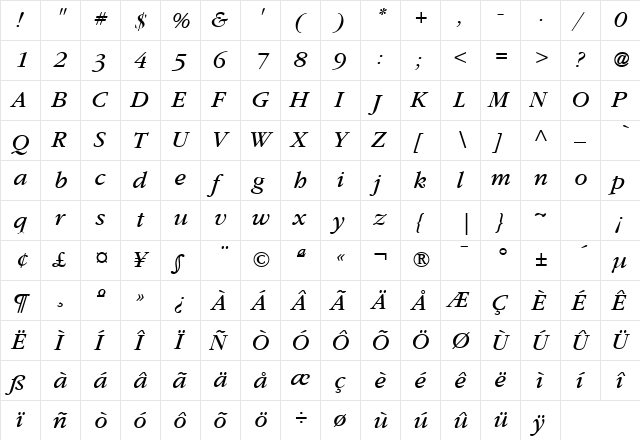
GarryMondrian4 BookItalicSH
Design Context for GarryMondrian4 Typeface
GarryMondrian4 is a composed and adaptable typeface that performs quietly and consistently across a wide range of design contexts. Its italic angle brings a sense of urgency and motion to the letterforms.
Pro Tip: Use GarryMondrian4 for emphasis, pull quotes, and subheadings where its slanted energy can add rhythm to the layout.